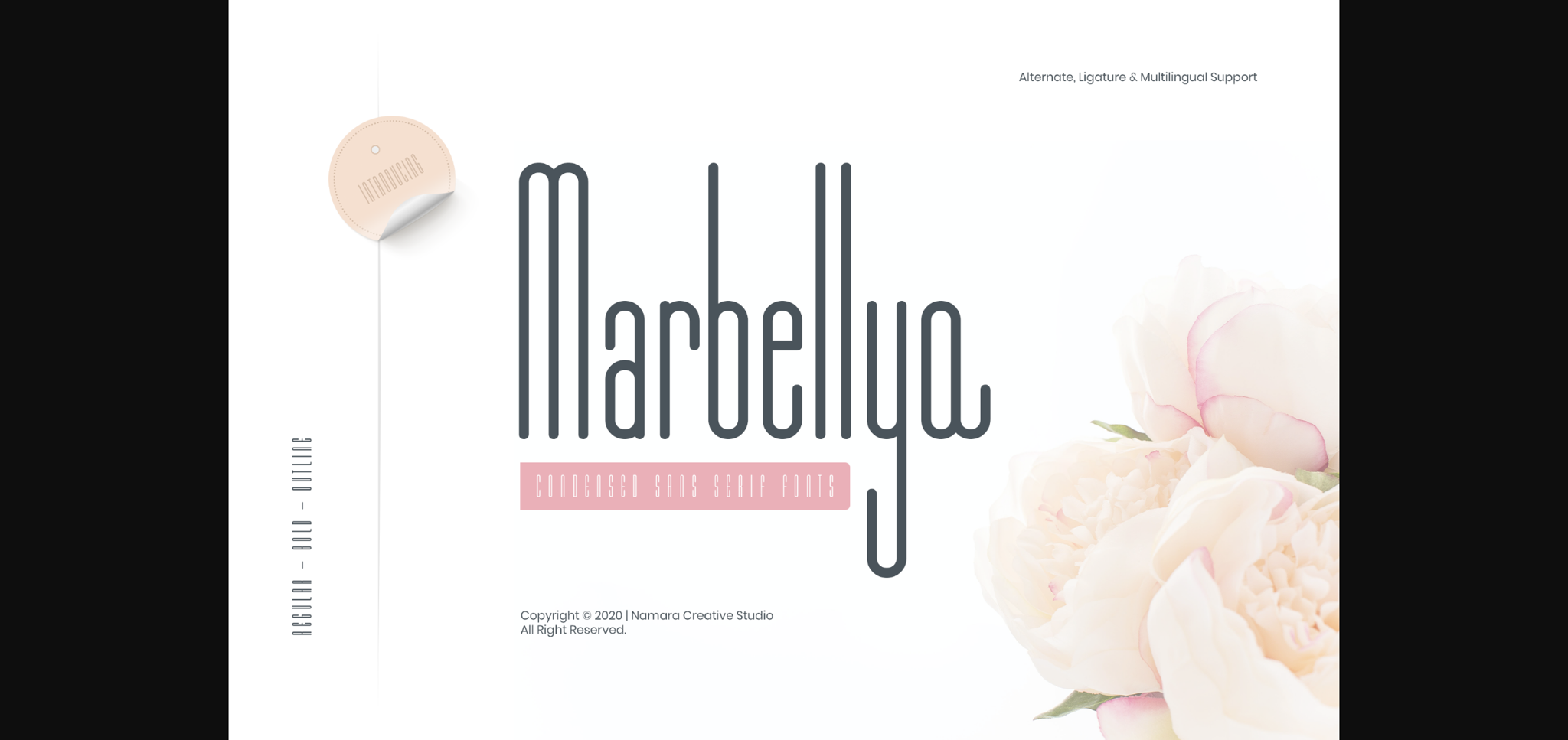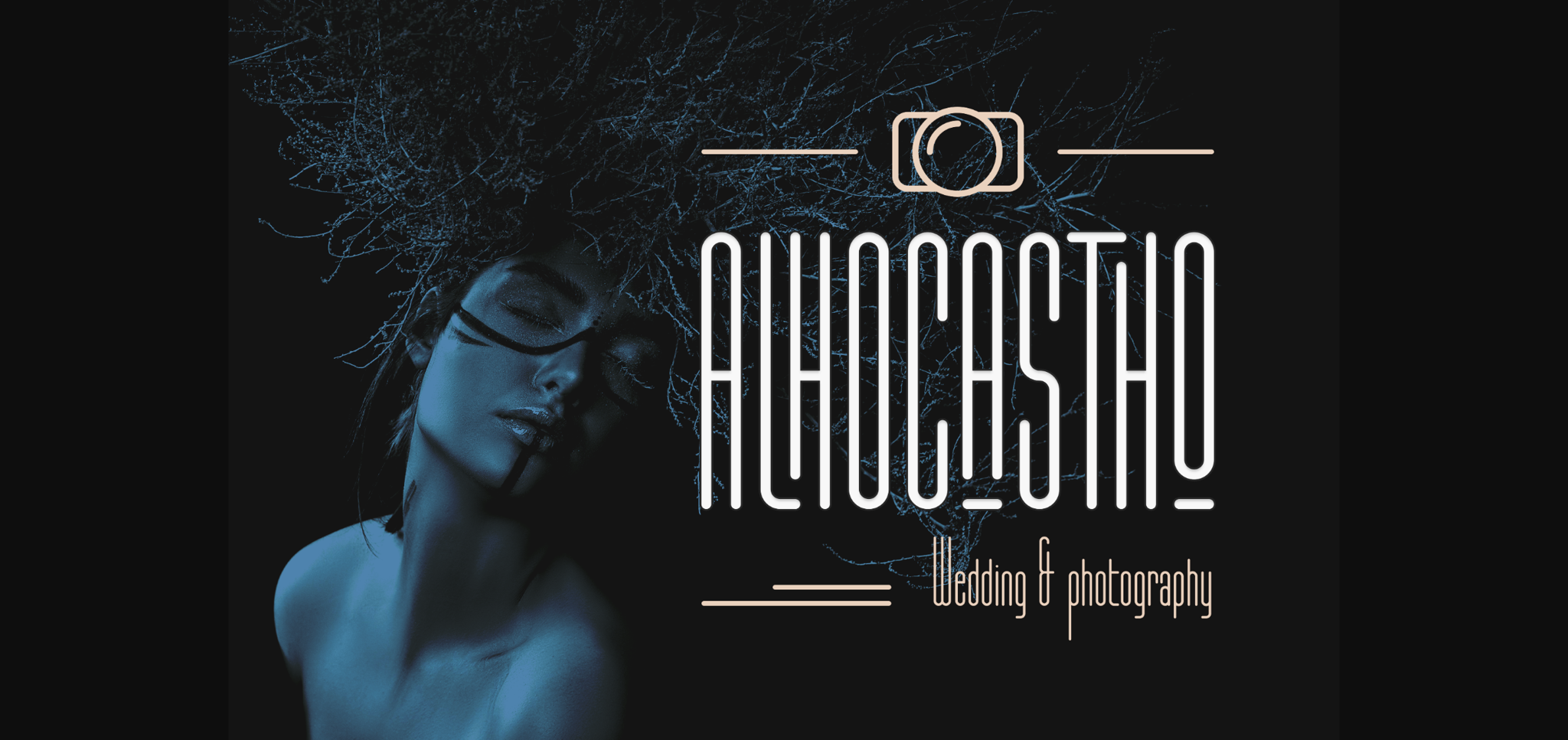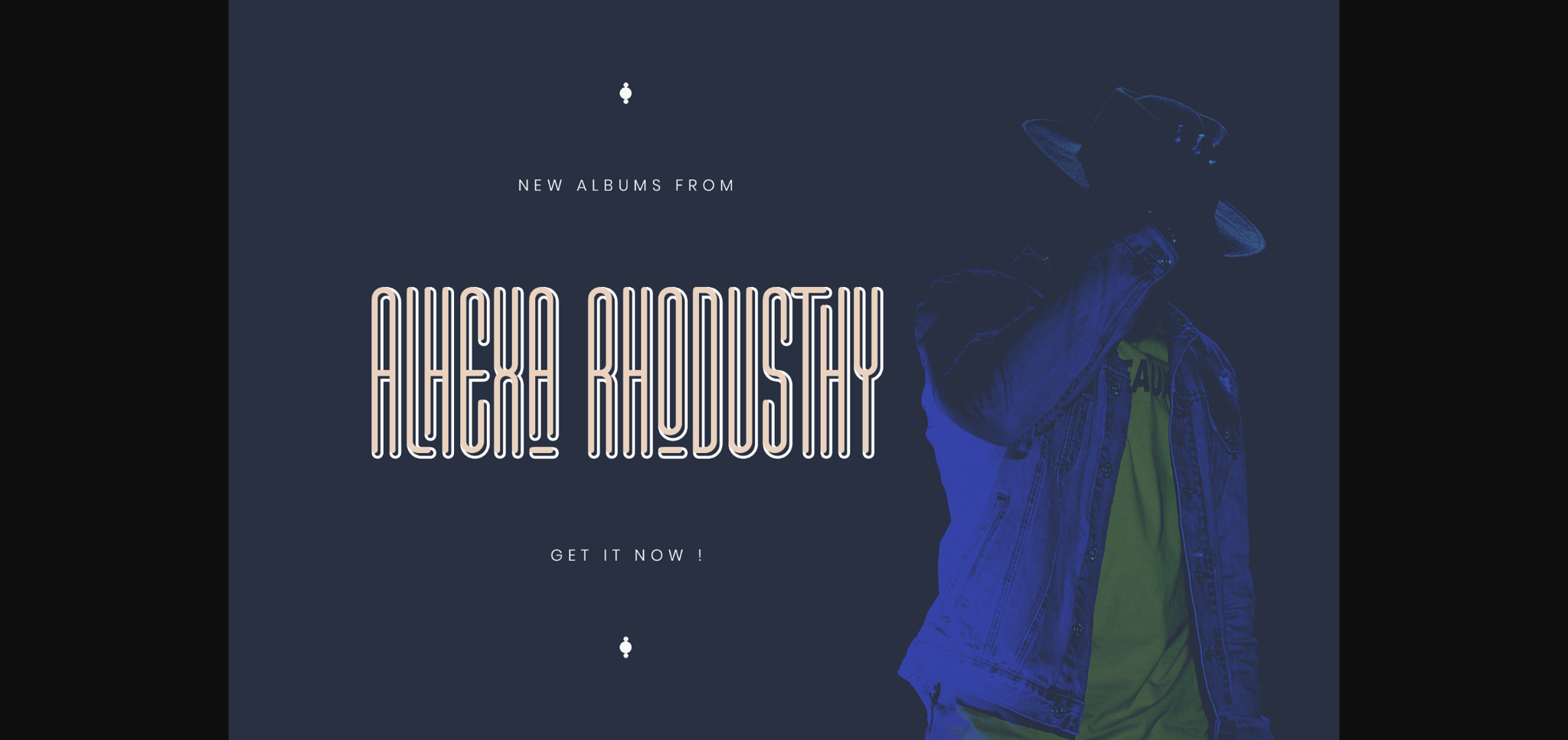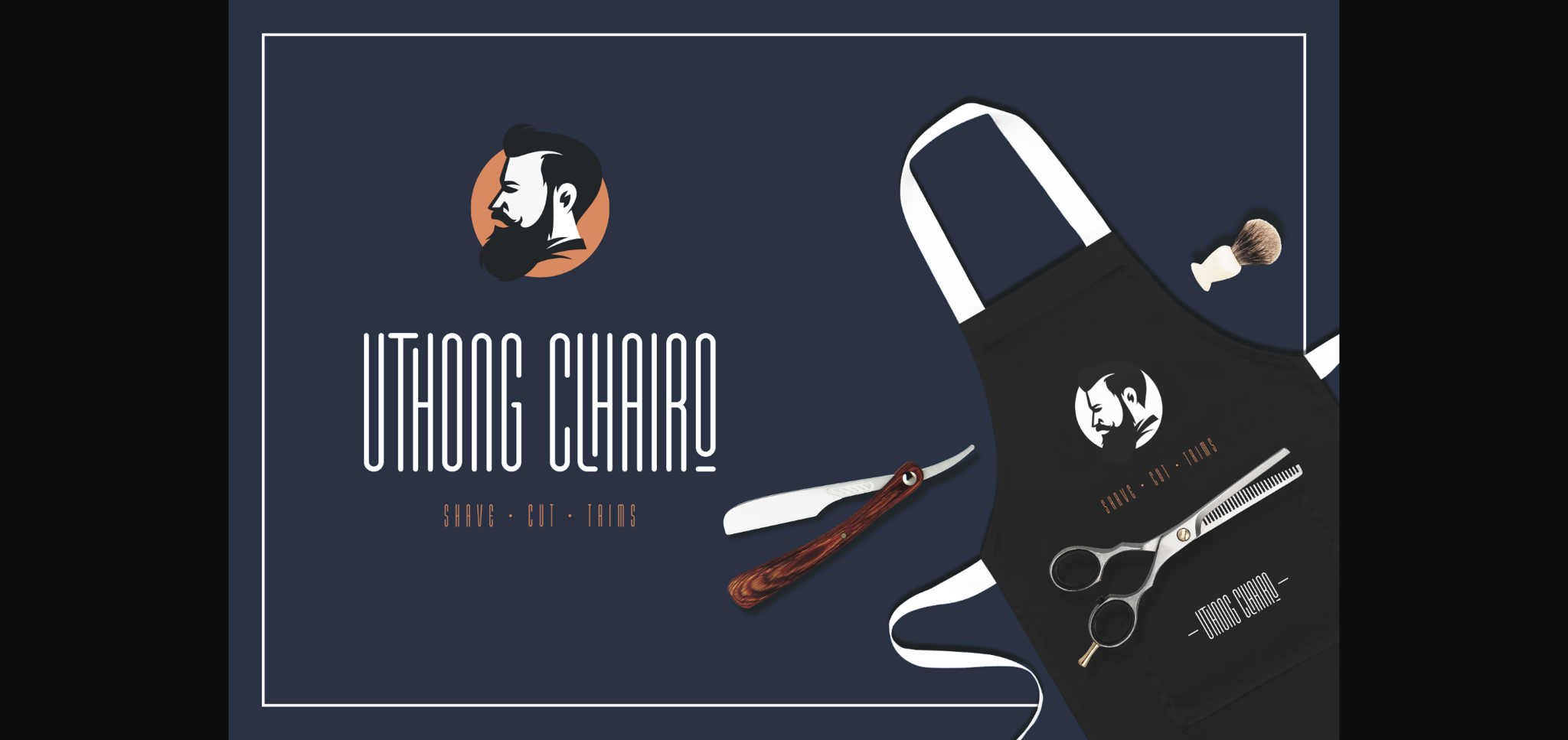
Marbellya Font
About Marbellya Font
Marbellya is a simple, yet elegant sans serif font. Suitable to a wide variety of designs due to its neat and simple style, Marbellya has the potential to become your favorite go-to font, no matter the occasion!